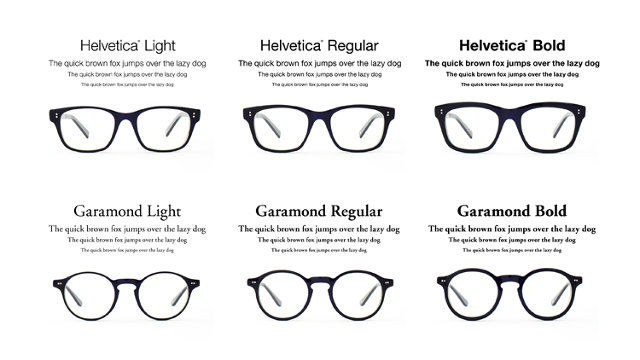
Ad agency Wieden+Kennedy's and retailer 'Oh My Glasses' have collaborated on an ingenious design eyewear line inspired by popular fonts. Typefaces Urostile, Optima, Friz Quadrata and Serif Gothic are just some of the ones that inspire the collection.
In some designs, curves and shapes of round letters like a lowercase 'g' are copied to create eyeglass frames. Other examples are not quite as derivative and subtly influence a particular design.
Popular fonts like Helvetica and Garamond tend to also be sought-after as frames. Even within those typefaces, the eyewear line mimics each of their variations and offers the glasses in light, regular or bold. The font theme even extends to the style of the arms on the glasses.
Typeface-Inspired Eyewear
This Design Eyewear Collection Takes Inspiration From Favorite Fonts